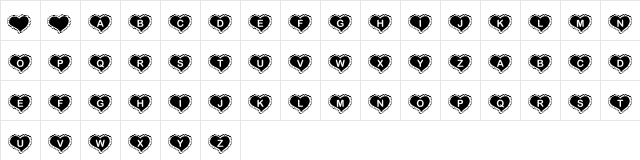
KR Valentine Heart Regular
Design Context for KR Valentine Heart Typeface
KR Valentine Heart is a composed and adaptable typeface that performs quietly and consistently across a wide range of design contexts.